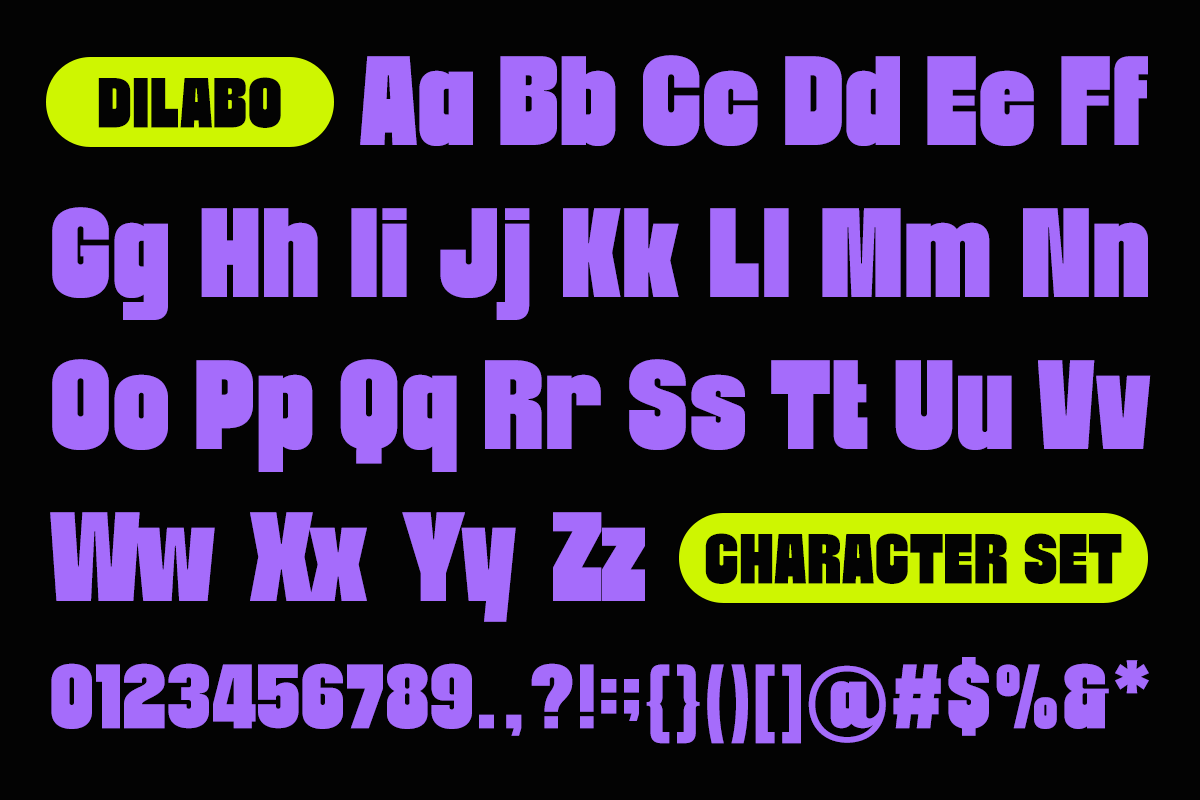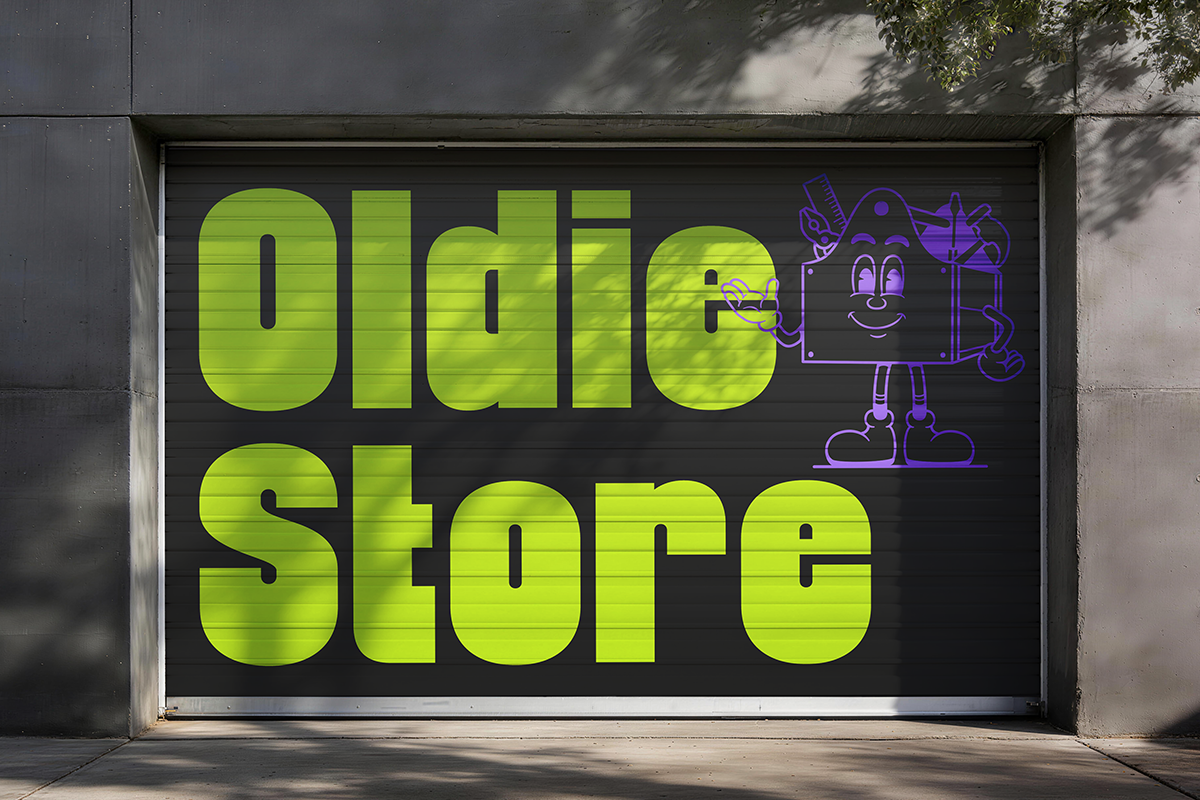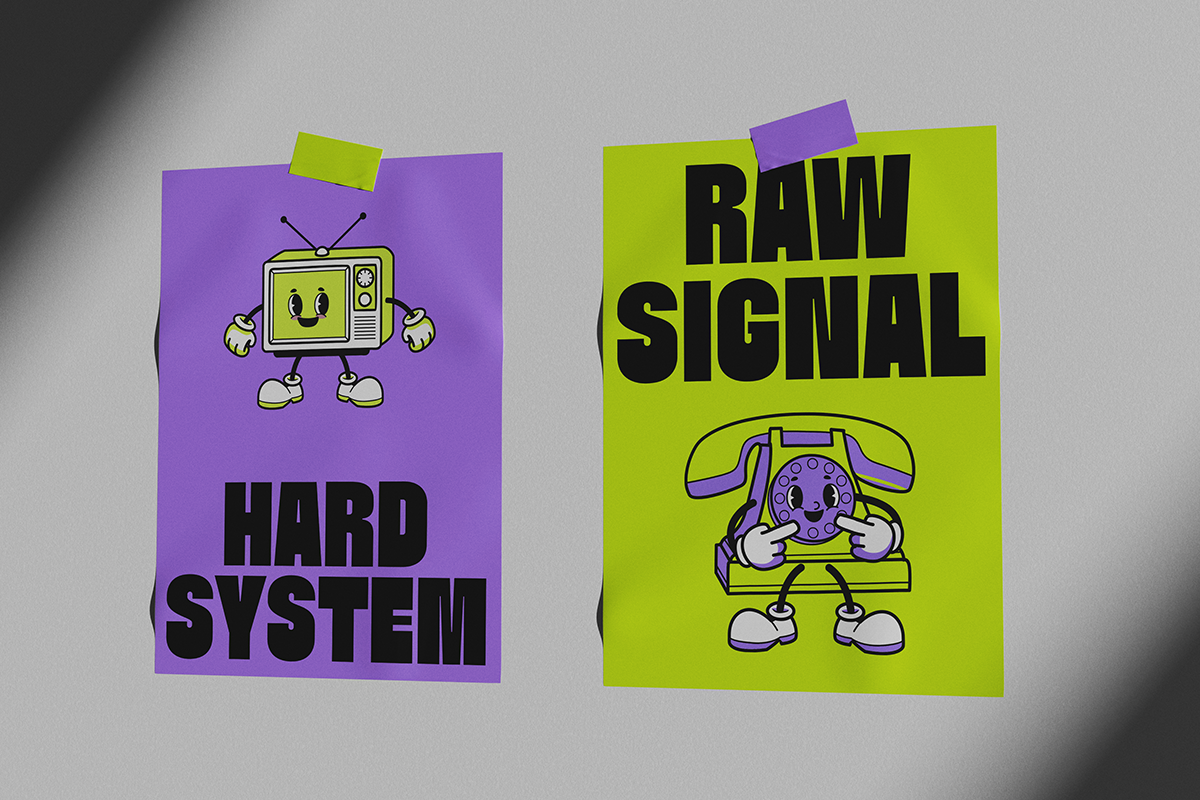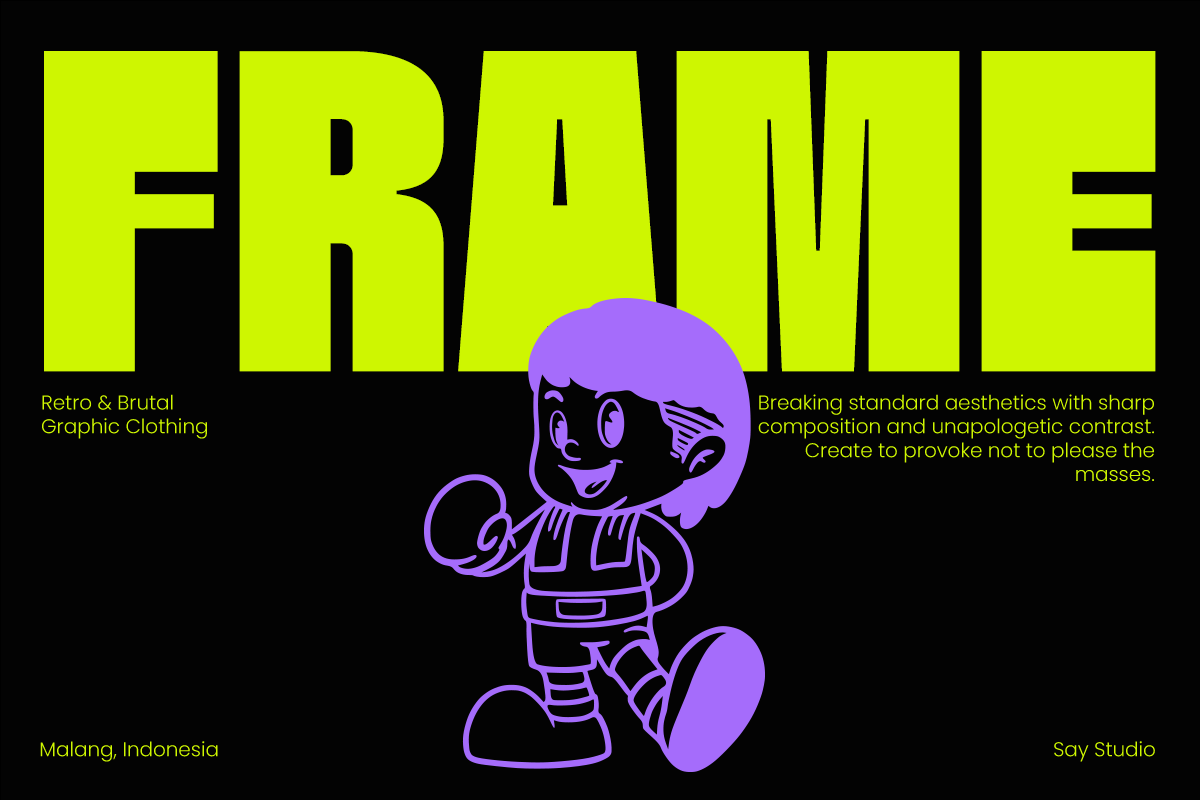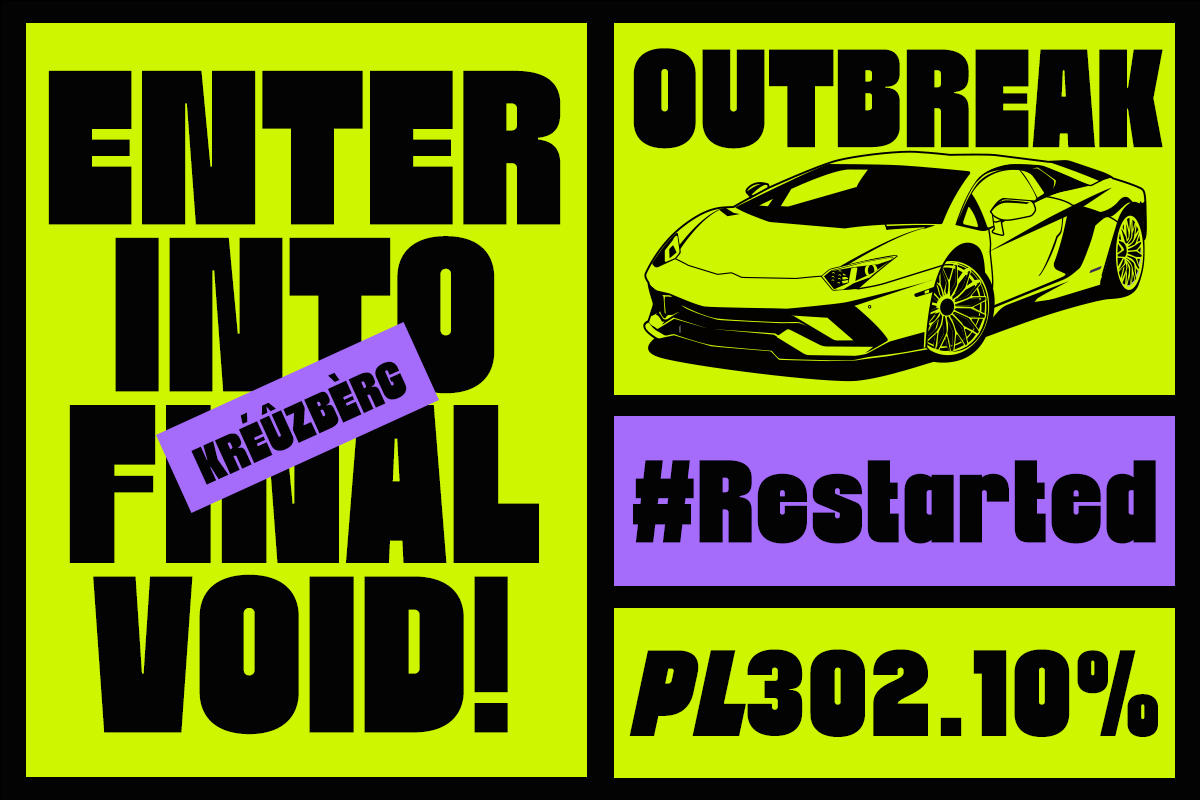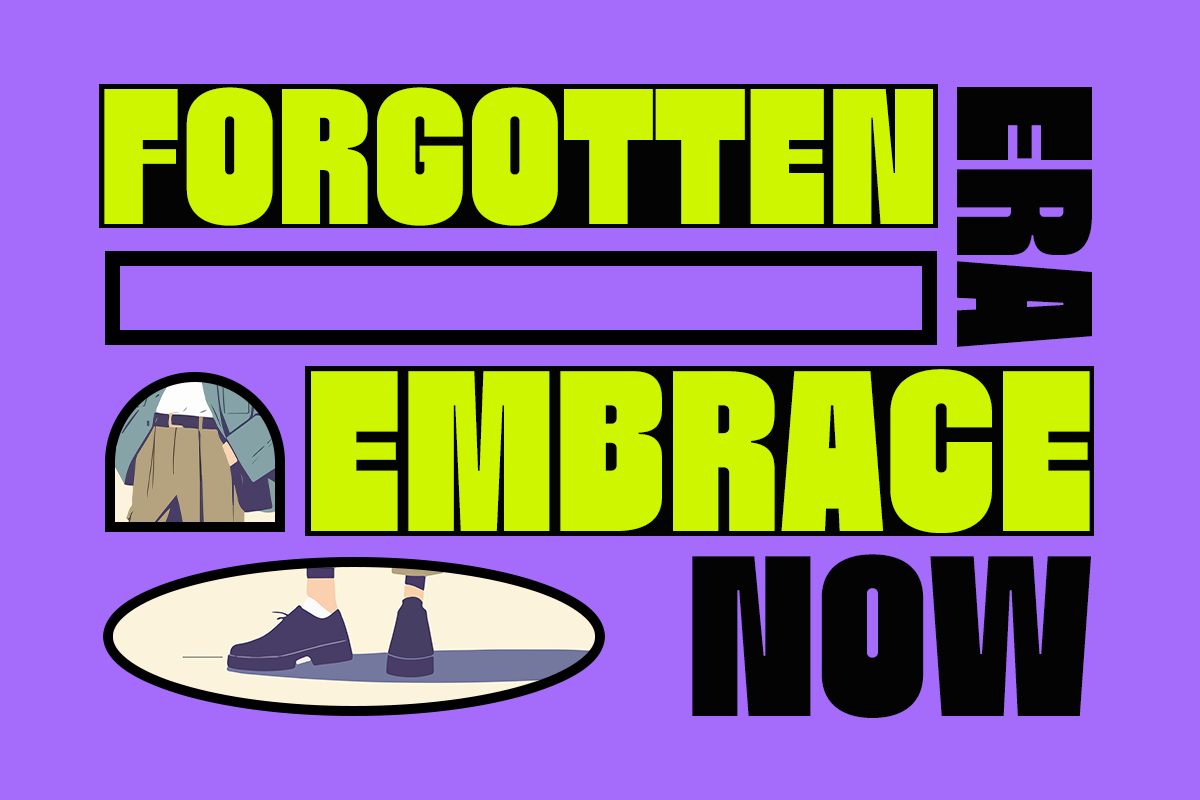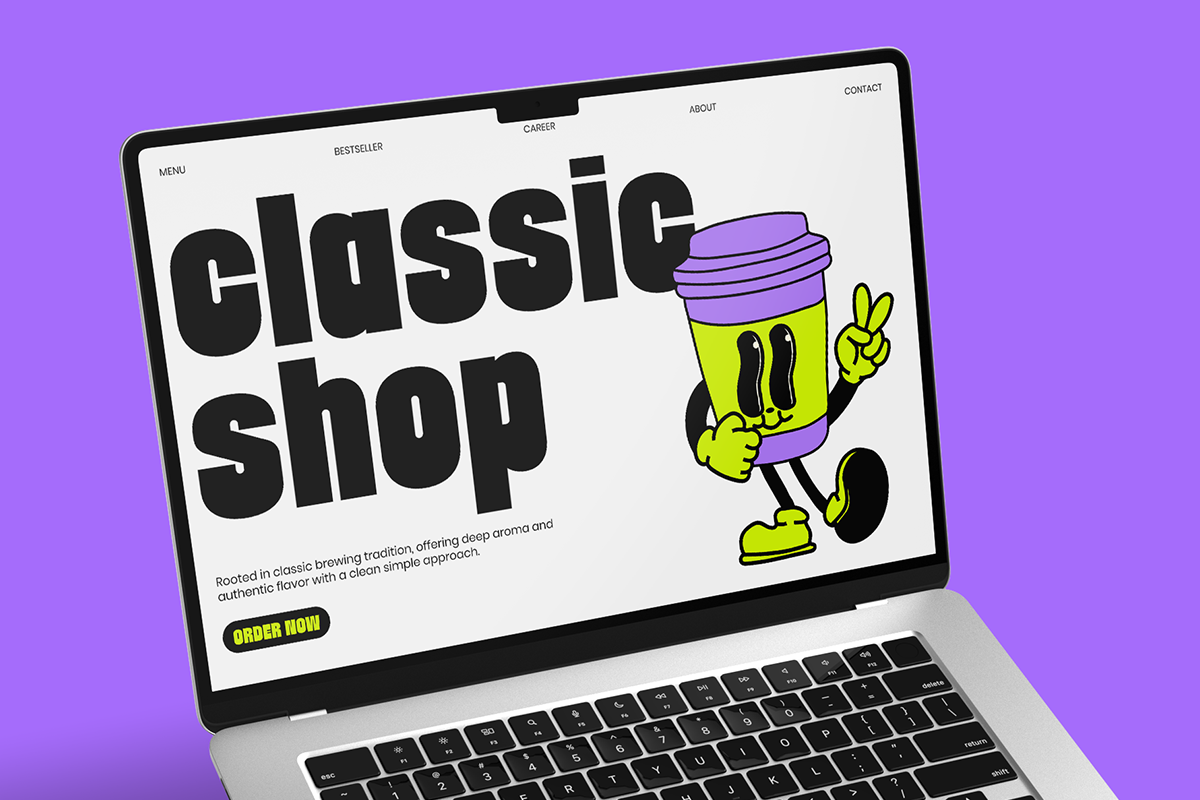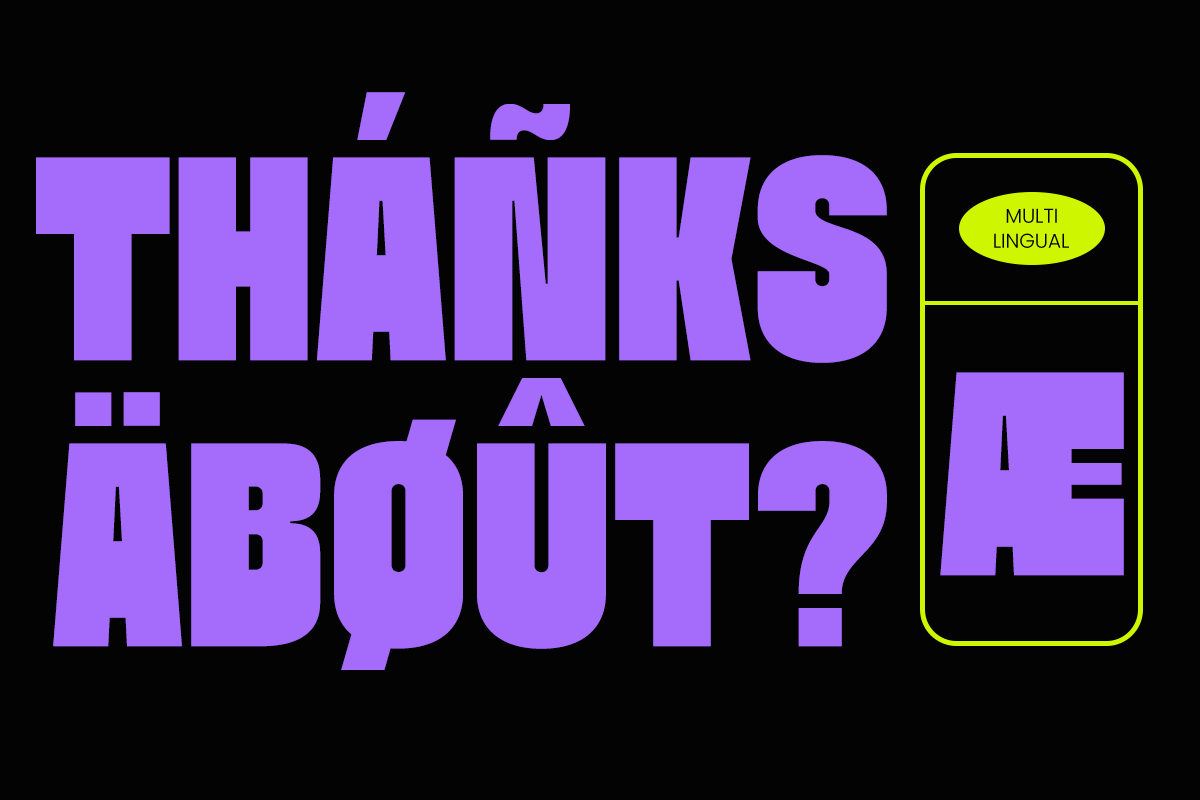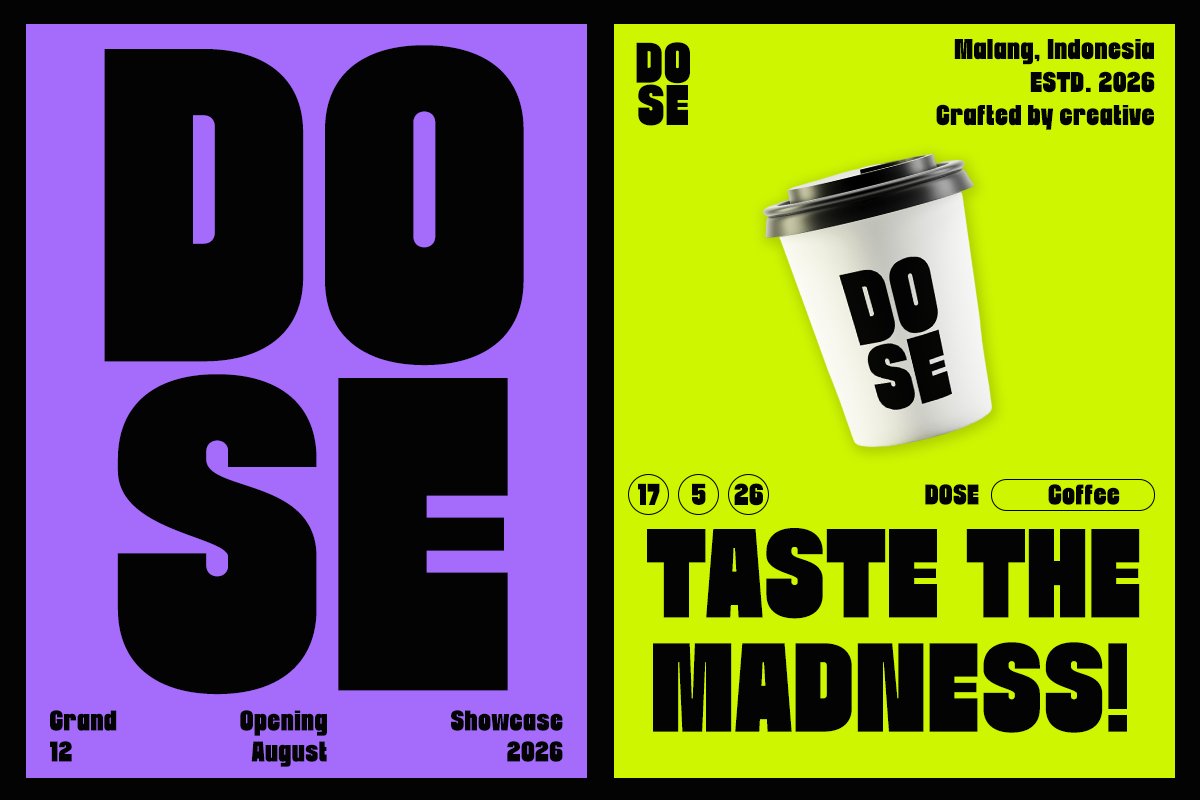
Dilabo - Bold Condensed Sans Serif
Dilabo is a bold condensed sans serif font with a strong brutalist and urban personality. Designed to make a loud visual statement, this typeface combines chunky letterforms, tall proportions, and modern condensed styling to create typography that feels powerful, expressive, and highly contemporary. Perfect for designers who want bold visuals that instantly capture attention.
Inspired by streetwear culture, retro posters, editorial layouts, and modern branding trends, Dilabo works beautifully for fashion branding, music covers, packaging, sports graphics, social media, magazine headlines, advertising campaigns, and creative poster design. Its oversized aesthetic and strong visual rhythm make it ideal for projects that demand impactful typography and confident branding.
Whether you are creating a modern streetwear identity, brutalist-inspired layouts, urban merchandise, coffee shop branding, or eye-catching digital content, Dilabo delivers a clean yet aggressive typographic style that feels trendy, energetic, and versatile. This font is perfect for bold creatives looking to build memorable visual experiences with strong modern character.